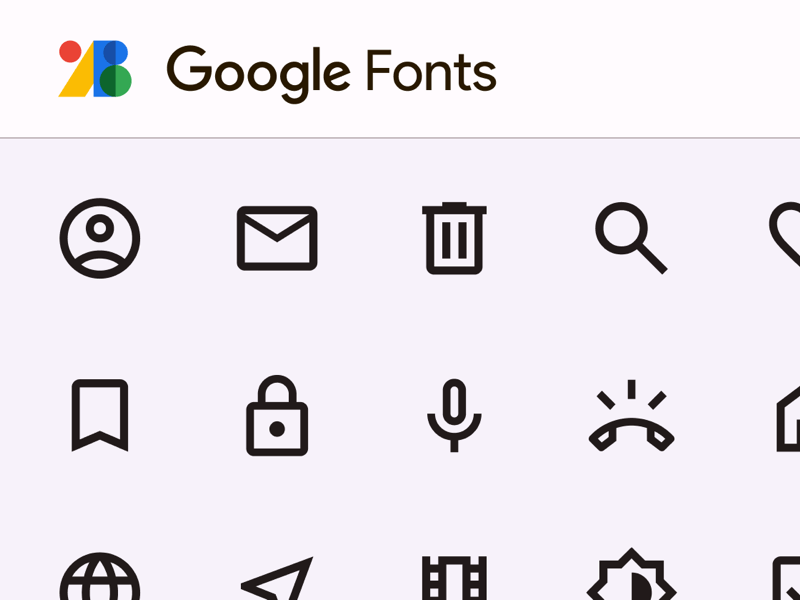
Icons and web fonts make a site feel polished. The right icons + a readable, modern web font lift UX without slowing your pages. Here are seven free icon sets and matching web fonts that are lightweight, actively maintained, and easy to drop into any project.
1. Lucide — consistent, SVG-first icons
2. Feather Icons — minimal and tiny
Why use it: purposely simple, tiny file sizes; perfect for minimalist UIs and mobile where every byte counts.
3. Heroicons — made for Tailwind projects
Why use it: a modern set of outline/solid SVGs that pair nicely with utility-first CSS workflows. Ideal for UI controls and forms.
4. Remix Icon — broad and flexible
Why use it: large coverage of categories, easy-to-style SVGs and webfont variants; good for marketing sites and apps.
5. Material Icons (Google) — robust and familiar
Why use it: thorough coverage and strong docs; if you follow Material Design, this is the fastest path for consistent icons.
6. Font Awesome Free — webfont convenience
Why use it: classic and familiar; good if you prefer a single webfont file rather than separate SVGs. (Use the Free plan/kit for common icons.)
7. Icomoon / custom icon fonts — build only what you need
Why use it: assemble only the icons you use to reduce payload; great for static sites where HTTP requests are precious.
Pairing web fonts (quick suggestions)
Inter — excellent UI sans for interfaces.
Poppins — rounded display for headings.
Roboto — neutral and readable.
Source Sans 3 — flexible and accessible for body text.
Choose two (heading + body), preload the body font, and host via Google Fonts or use a self-hosted WOFF2 file for best performance.
Quick comparison table
| Resource | Best for | Notes |
|---|---|---|
| Lucide | UI icons | Lightweight SVGs, consistent. |
| Heroicons | Tailwind UIs | Outline + solid SVG sets. |
| Font Awesome Free | Broad coverage | Webfont option for quick setup. |
| Icomoon | Custom builds | Export only the icons you use. |
| Inter (font) | UI body text | Highly readable, modern. |
How to choose (3 tips)
SVG vs webfont: pick SVGs when you need crisp icons with flexible styling; pick a webfont for simple, quick setups.
File size: prefer SVG sprites or icon subsets for performance.
Maintenance: pick a project with recent commits or an active community
Q: How many icon sets should I include on a site?
A: Stick to one icon family for UI consistency; use others only for special illustrations.